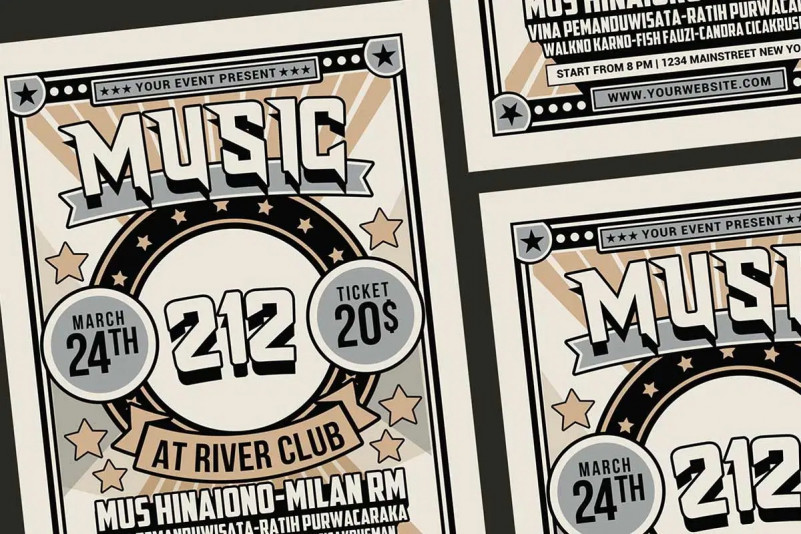
Angas Display Font
Angas is a cool, bold and thick lettered display font. It will look stunning on any poster, flyer or print.
Use this font for your futuristic designs and explore its endless possibilities.